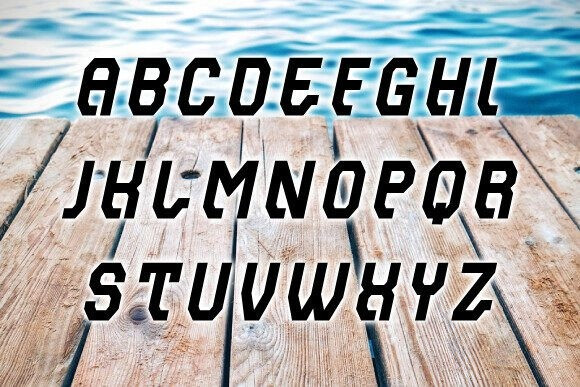
To Be Continued Font
To Be Continued is a bold, dynamic display font with a sharp, italicized edge that screams motion and drama. Perfect for retro intros, manga-style graphics, gaming titles, or anything needing a punchy, cinematic vibe—this font delivers energy and suspense in every character.